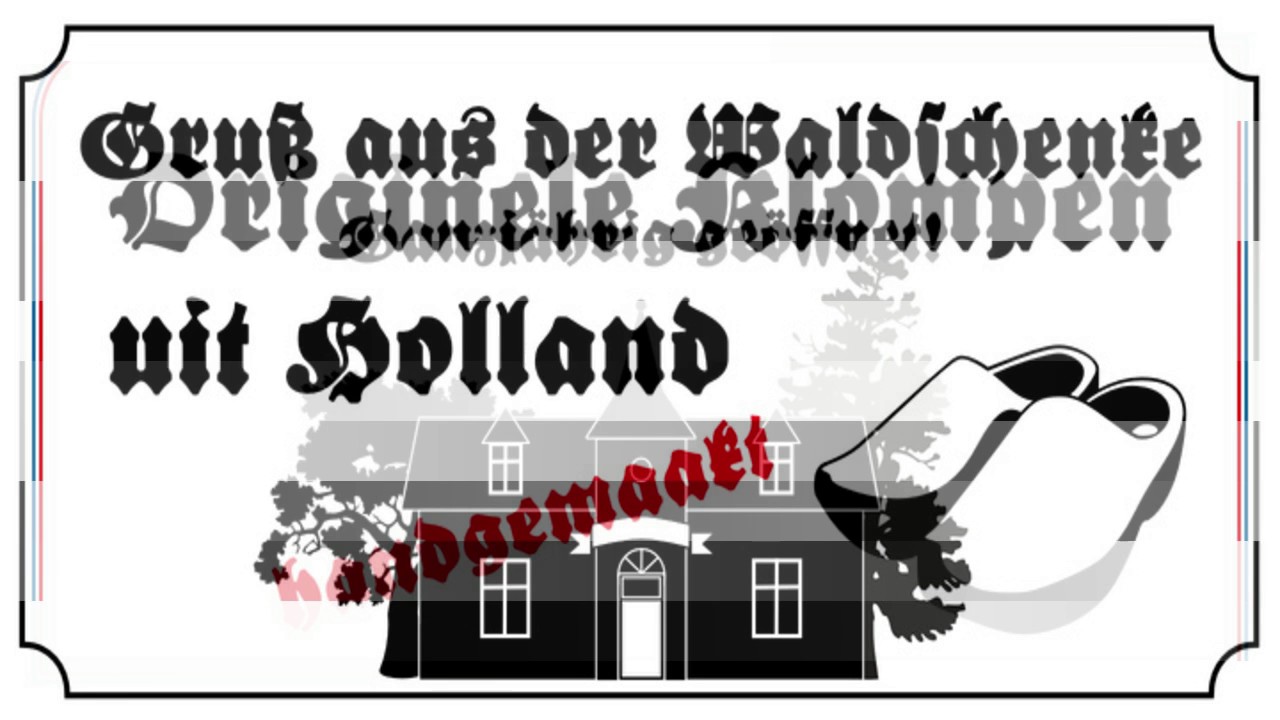
Bernhard Blackletter Font In Action
Bernhard Font Download Commercial Whatfontis Bernhard blackletter can be compared to a tuba, adding its deep bass sound to the orchestra of blackletter fonts. this font contains a bunch of useful ligatures, and to access all, it is recommended to activate both standard and discretionary ligatures. This font features a traditional blackletter style with bold, ornate characters. the letters have sharp, angular lines and intricate details, evoking a historical and formal aesthetic.
Bernhard Font Download Commercial Whatfontis Bernhard blackletter can be compared to a tuba, adding its deep bass sound to the orchestra of blackletter fonts. this font contains a bunch of useful. Bernhard blackletter can be compared to a tuba, adding its deep bass sound to the orchestra of blackletter fonts. this font contains a bunch of useful ligatures, and by typing ‘n’, ‘r’ and period plus activating the discretionary ligatures you get an oldstyle numbersign. Bernhard blackletter in use. a revival of bernhard fraktur extrafett. Bernhard blackletter: a tuba of blackletter fonts, resonating with deep bass notes and elegant ligatures.